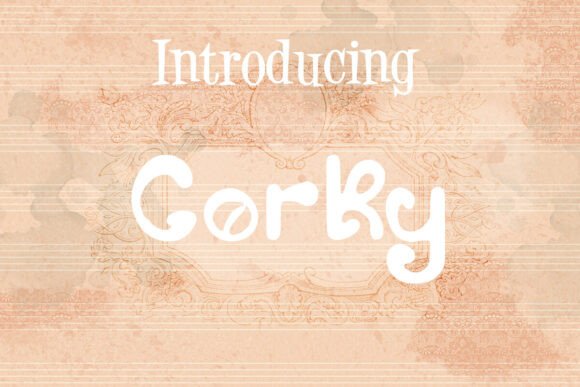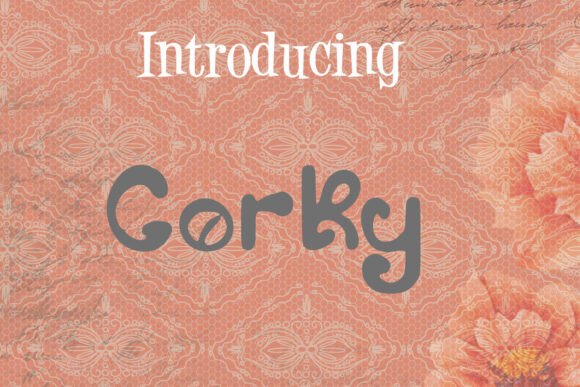
Corky Font: A Playful Display Font for Cricut & Cute DIY Projects
About the Corky Font
Get ready to be inspired by Corky Font, a fresh and dynamic typeface for modern creators. Introducing the dynamic Corky Display Font, a design chameleon perfect for a myriad of creative applications. Its versatility renders it excellent for highlighting your t-shirt and sticker designs, adding a unique touch to your branding, and injecting a dose of personality into your glossy magazine layouts. Ideal for SVG files and greeting card creation, it brings your messages to life. Embrace Corky Display Font for Cricut projects or incorporate it into your vibrant posters. And for a stylish digital presence, deploy this font across your social media platforms. Ultimately, the Corky Display Font enhances your creativity, elevates your work, and engages your audience like never before.
Corky Font Example